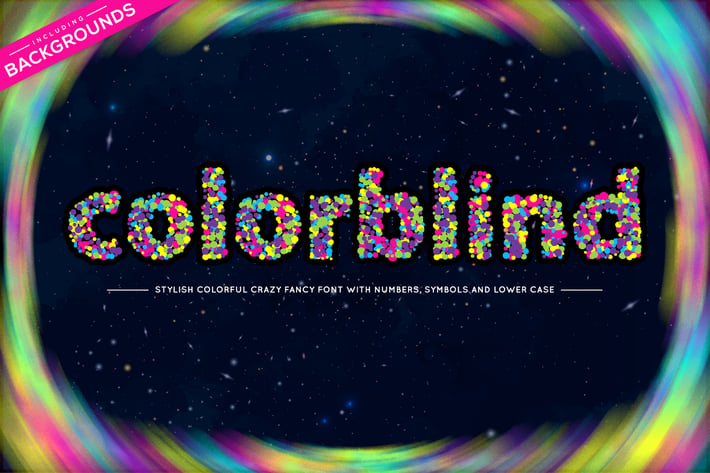
Colorblind OTF Colorful Font
This pack contains Colorblind trendy fancy Colorful OpenType Font in .OTF file format with lower-case, numbers and symbols (Adobe Illustrator 2018+). Also this pack contains 4 additional backgrounds. Each letter, symbol and number also introduced in big size PNG with transparency and PSD formats.